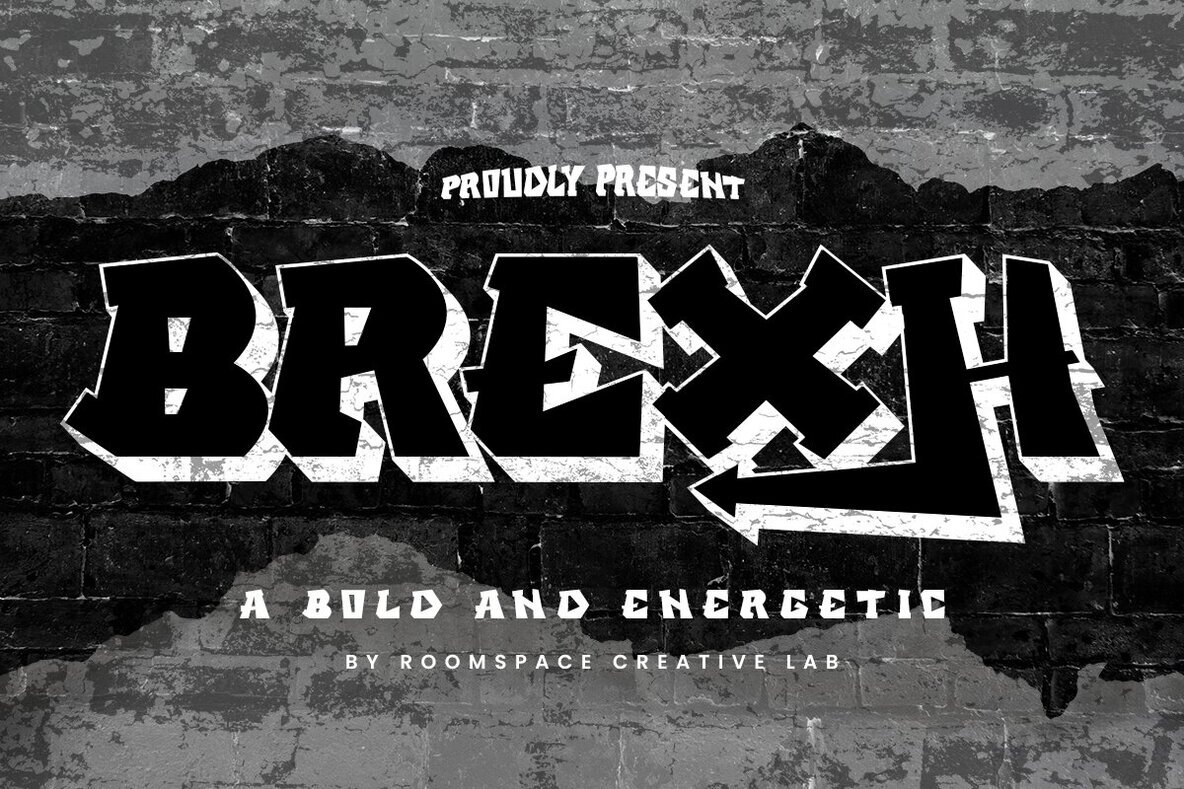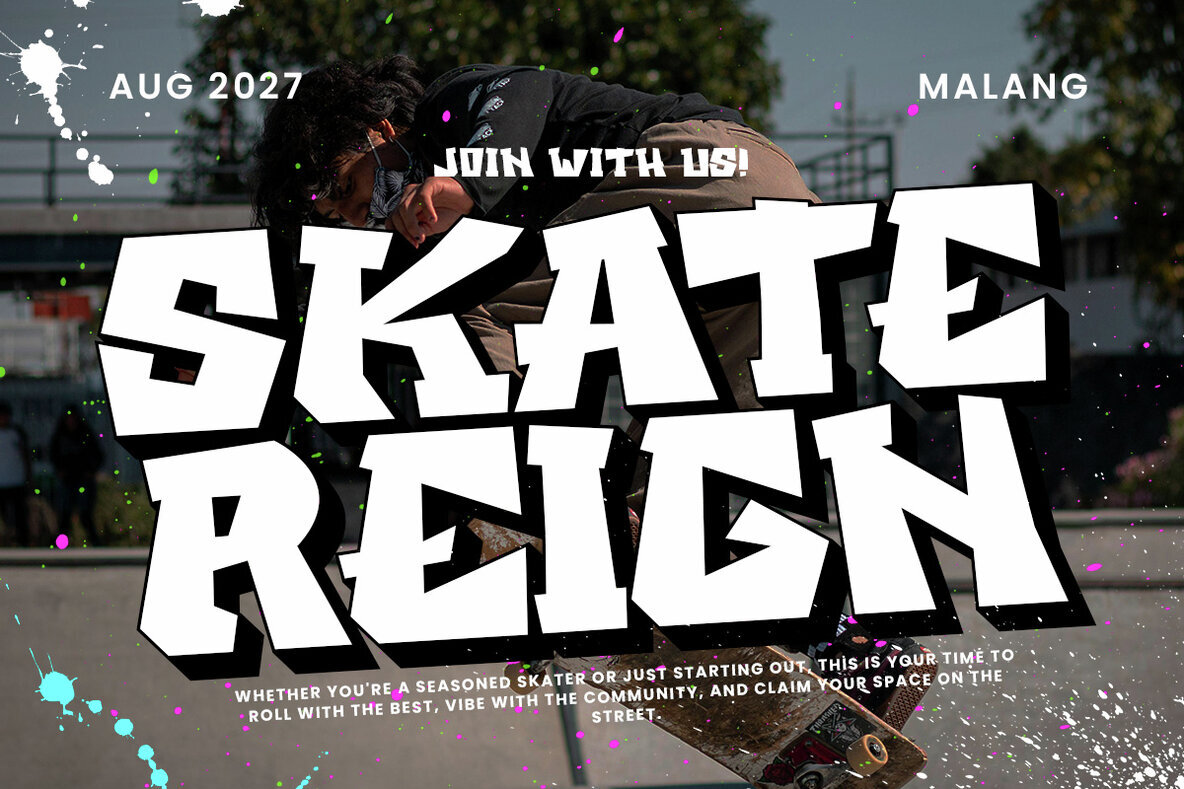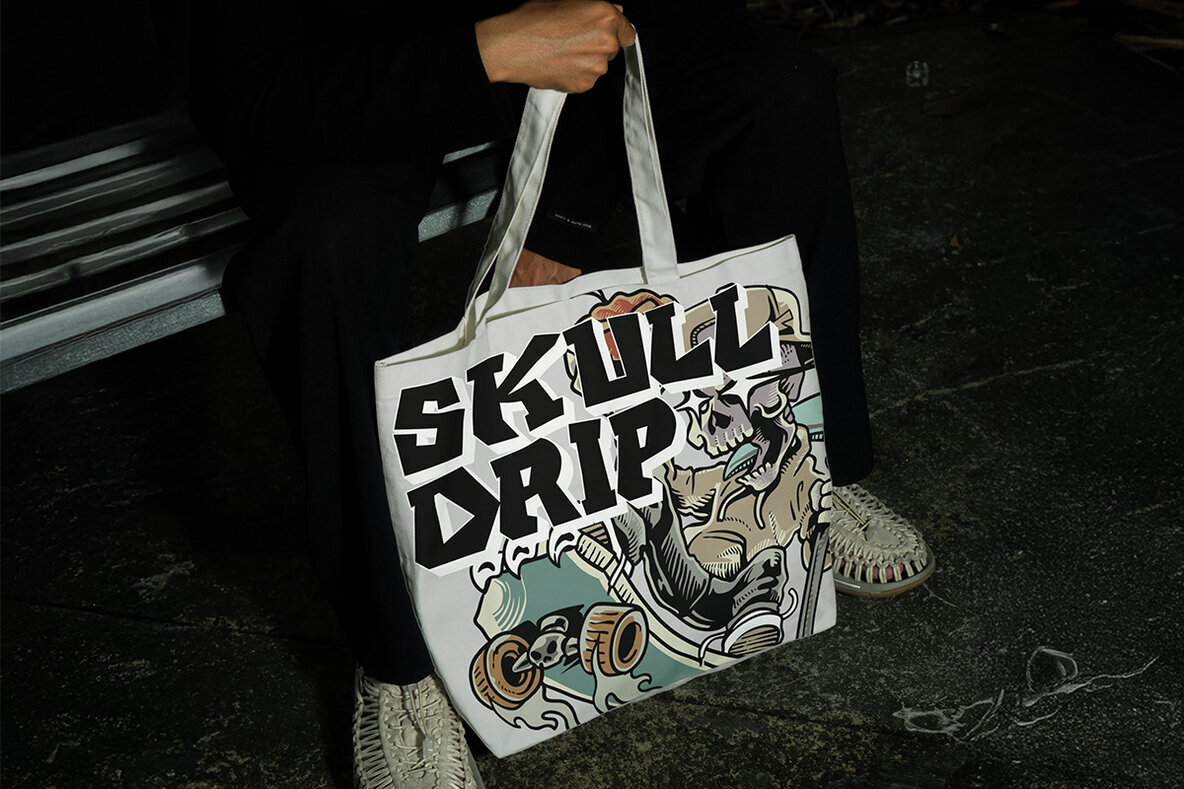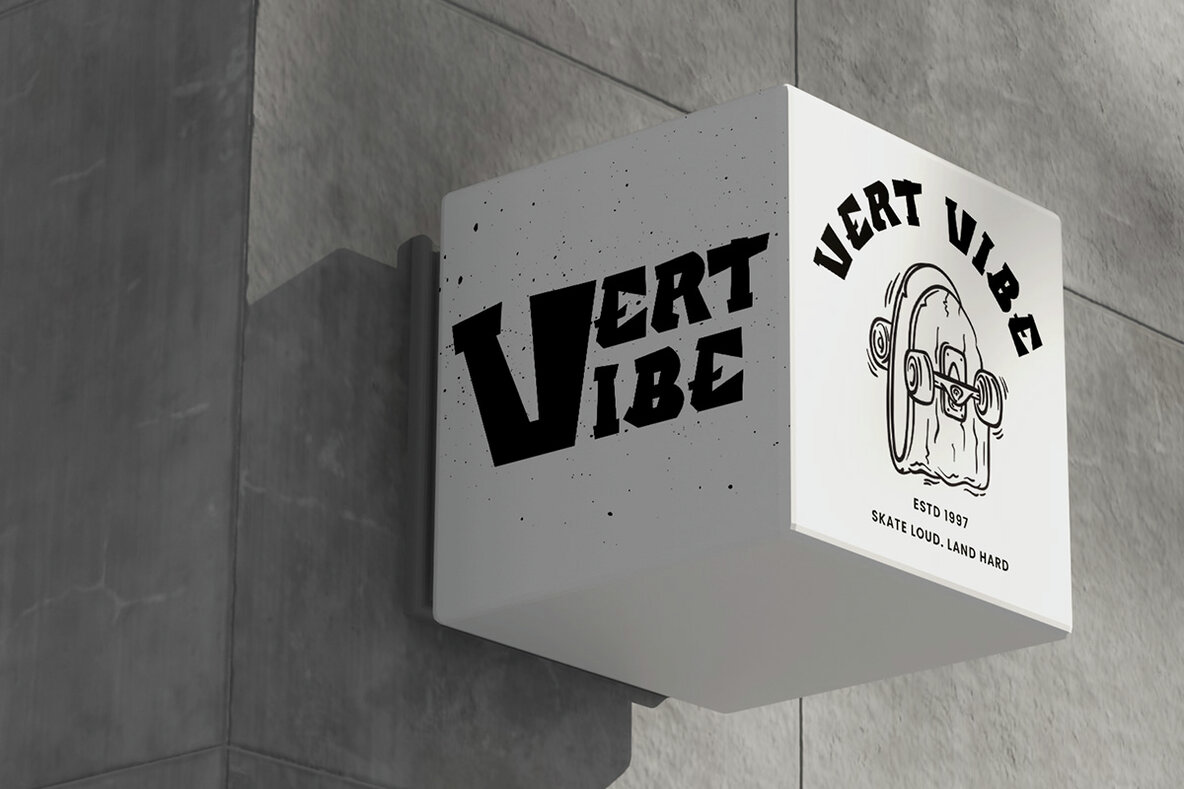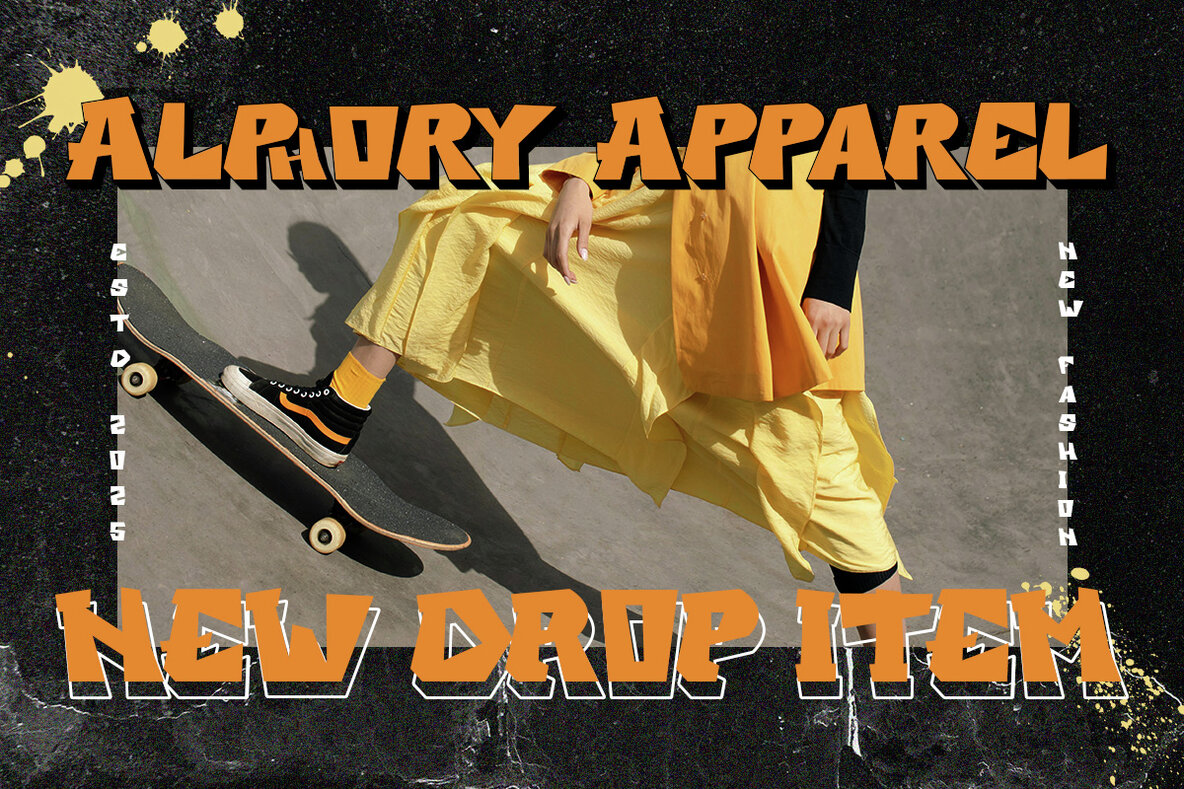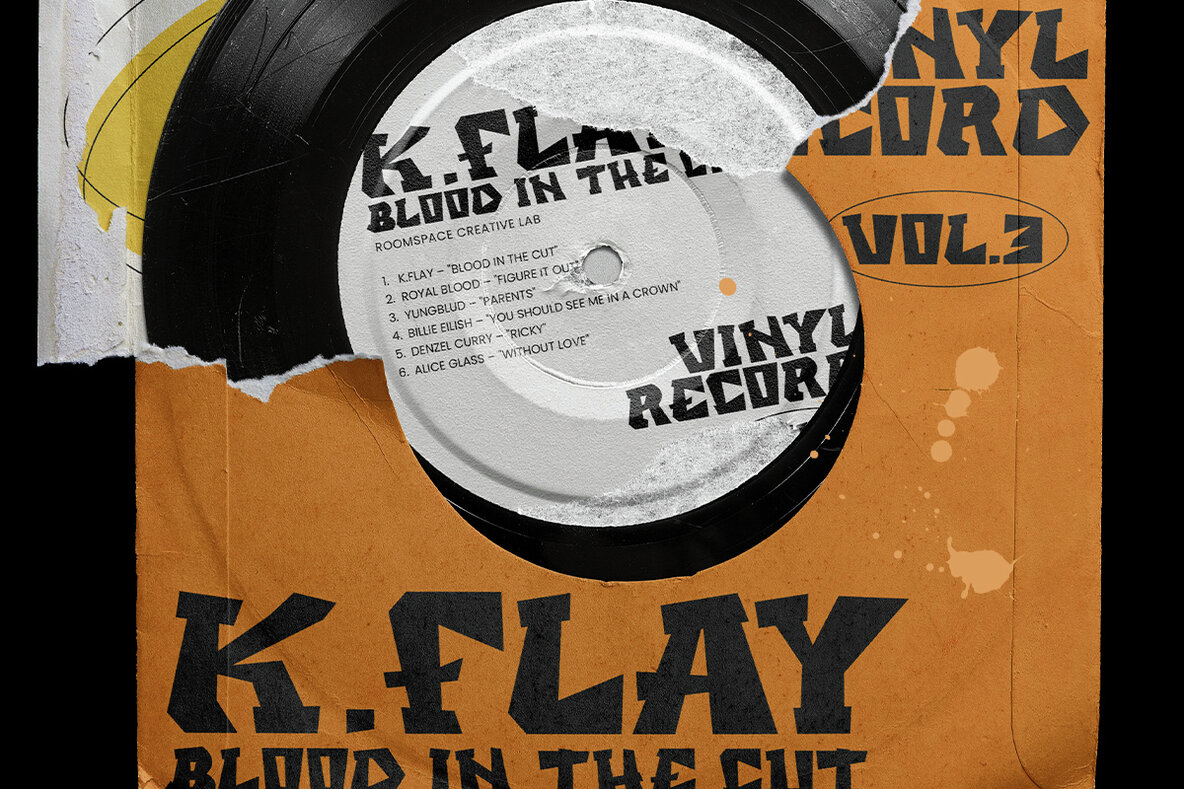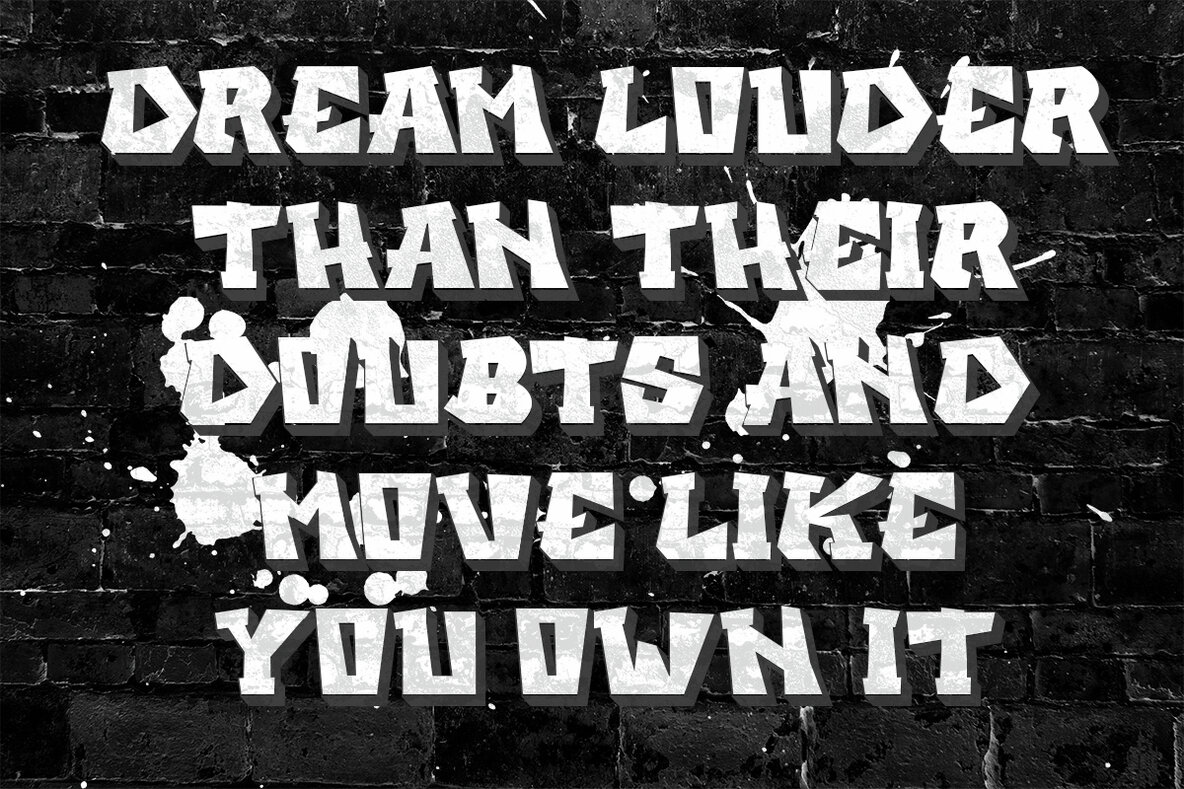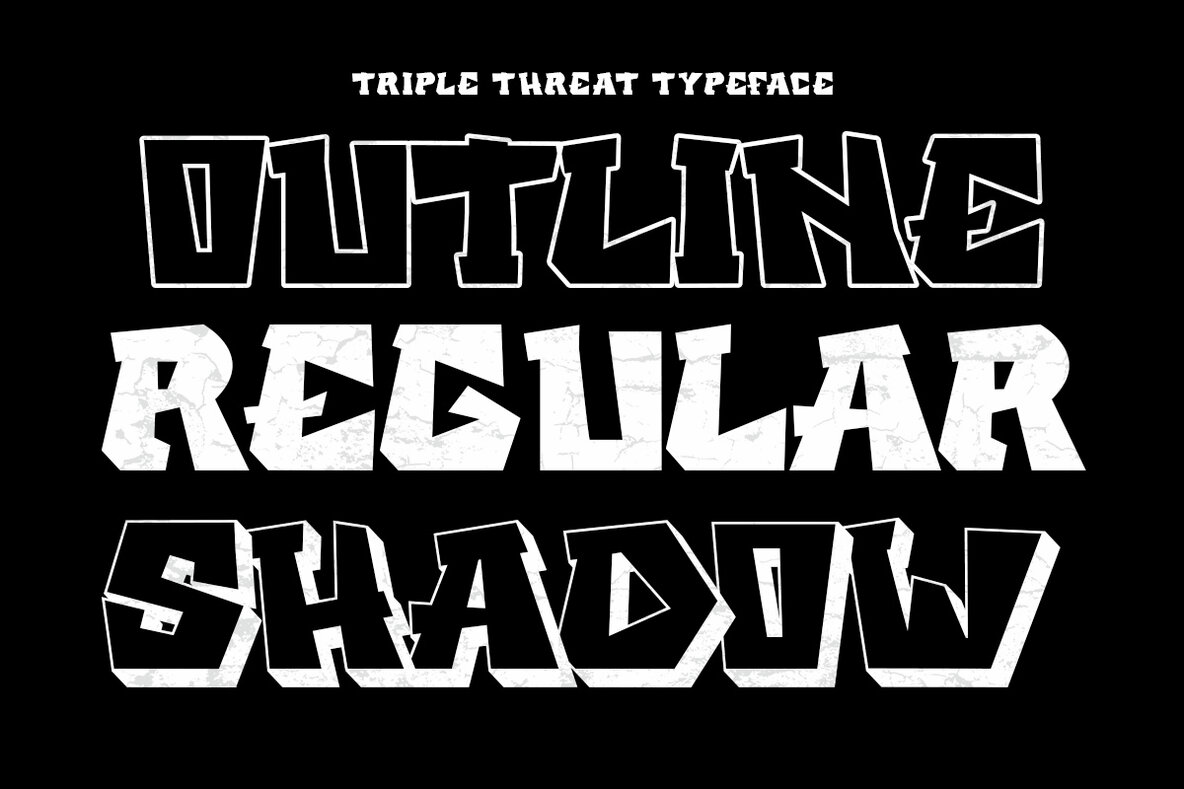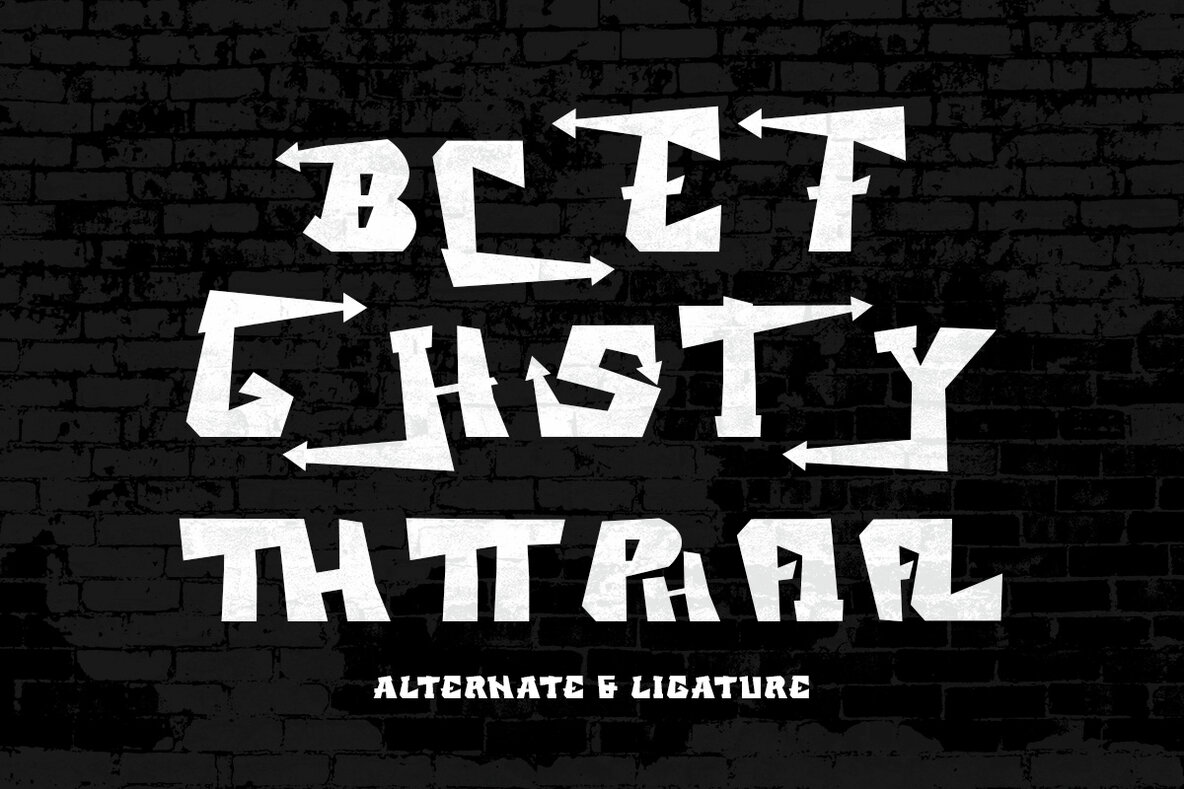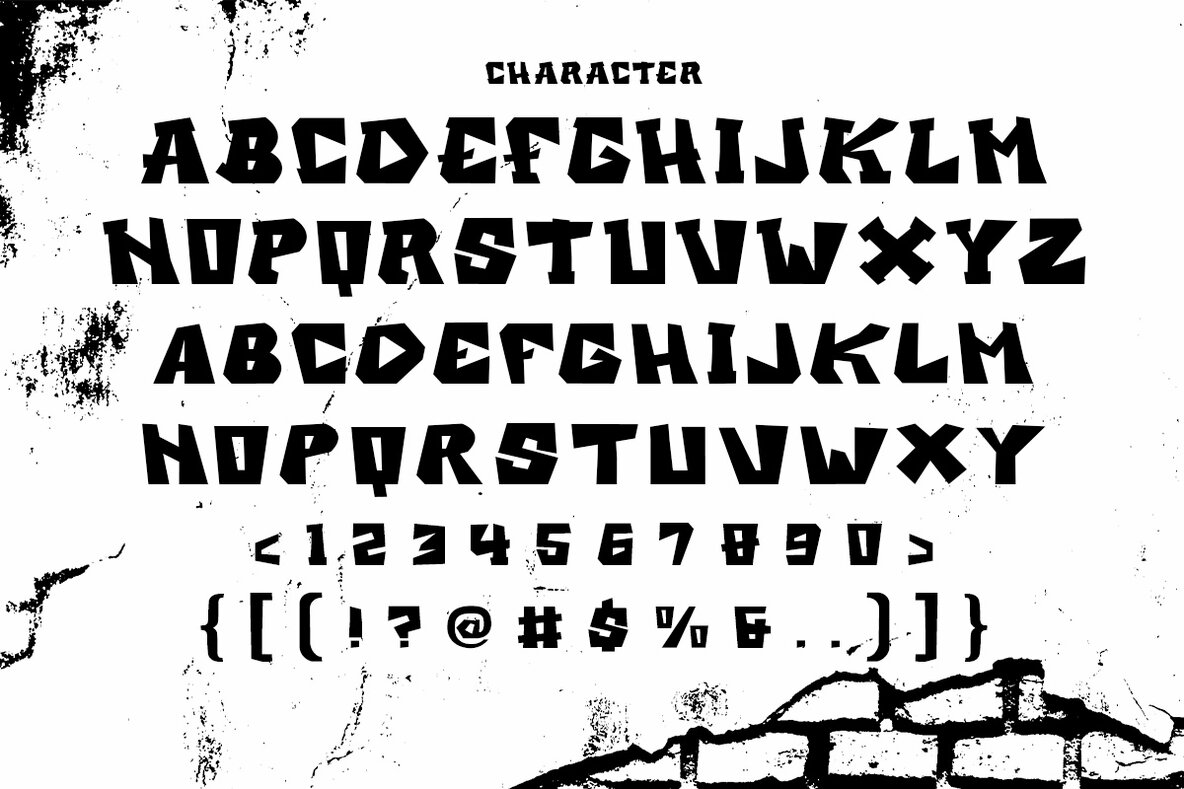
Brexh Font
Breathe life into your projects with Brexh, a bold graffiti-inspired display font crafted for urban, fearless design. This font melds the classic blackletter structure with streetwise energy, creating a unique vibe. Its sharp angles and rebellious edge make Brexh the ideal choice for modern urban aesthetics. Perfect for posters, event branding, music visuals, and bold headlines, Brexh adds punch and personality. Its graffiti marker influence ensures each letter makes a strong impact while maintaining clarity and readability.Brexh